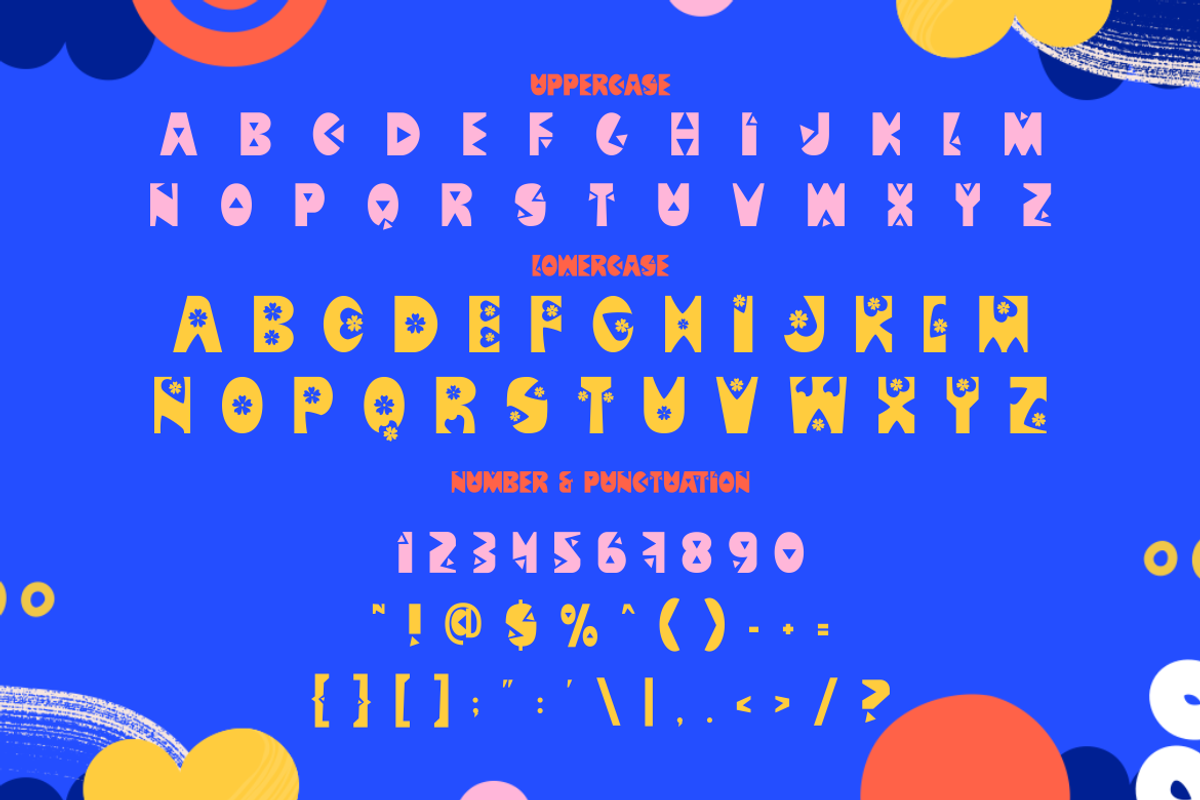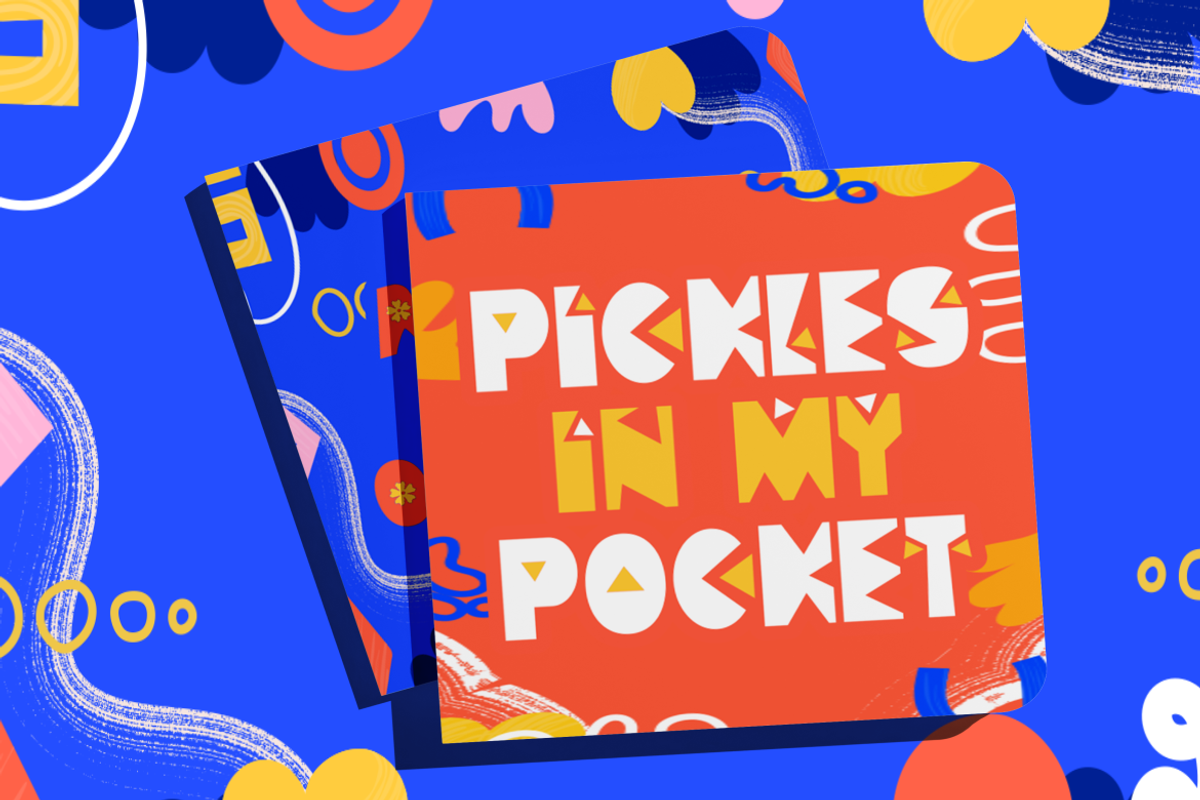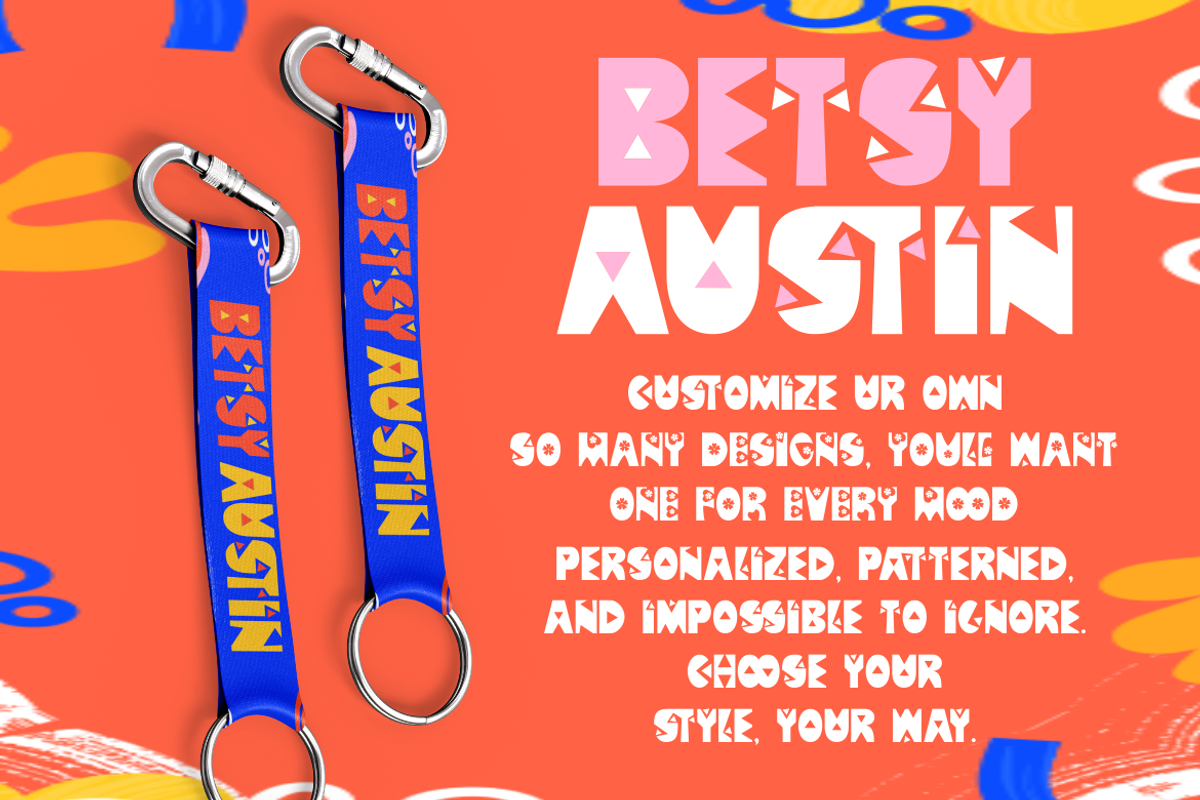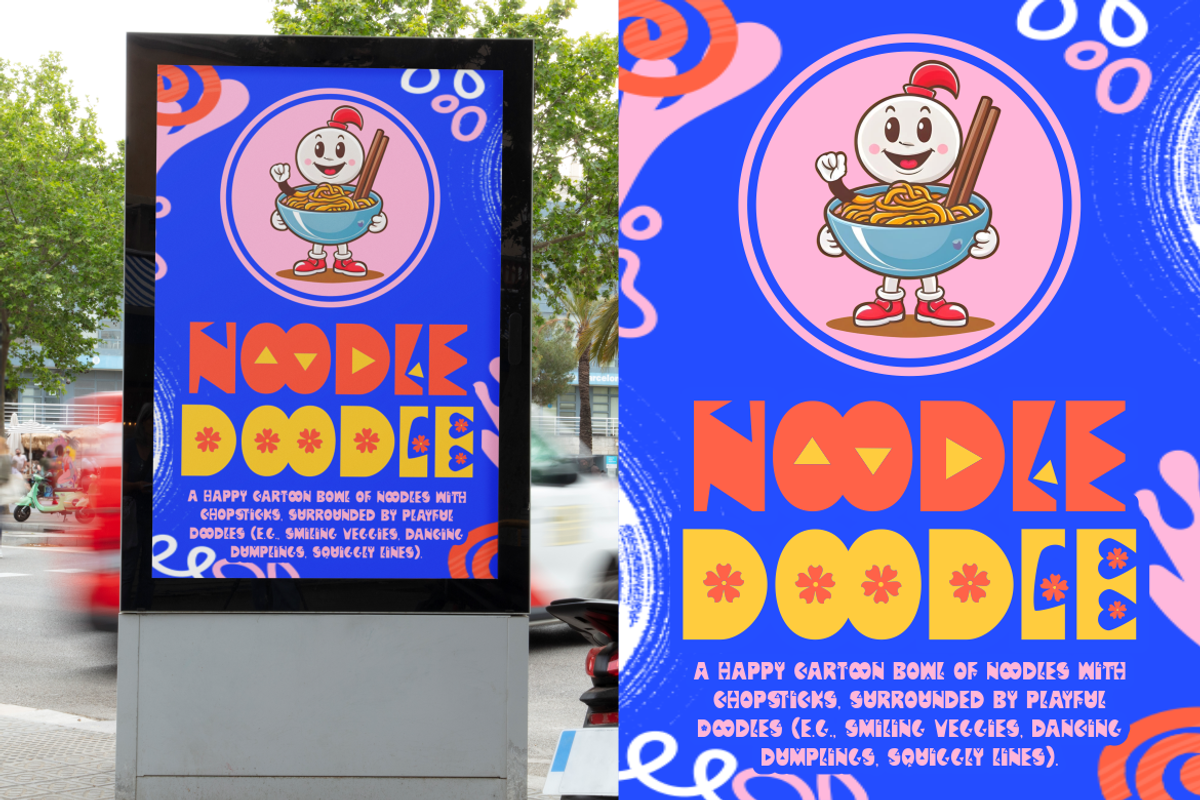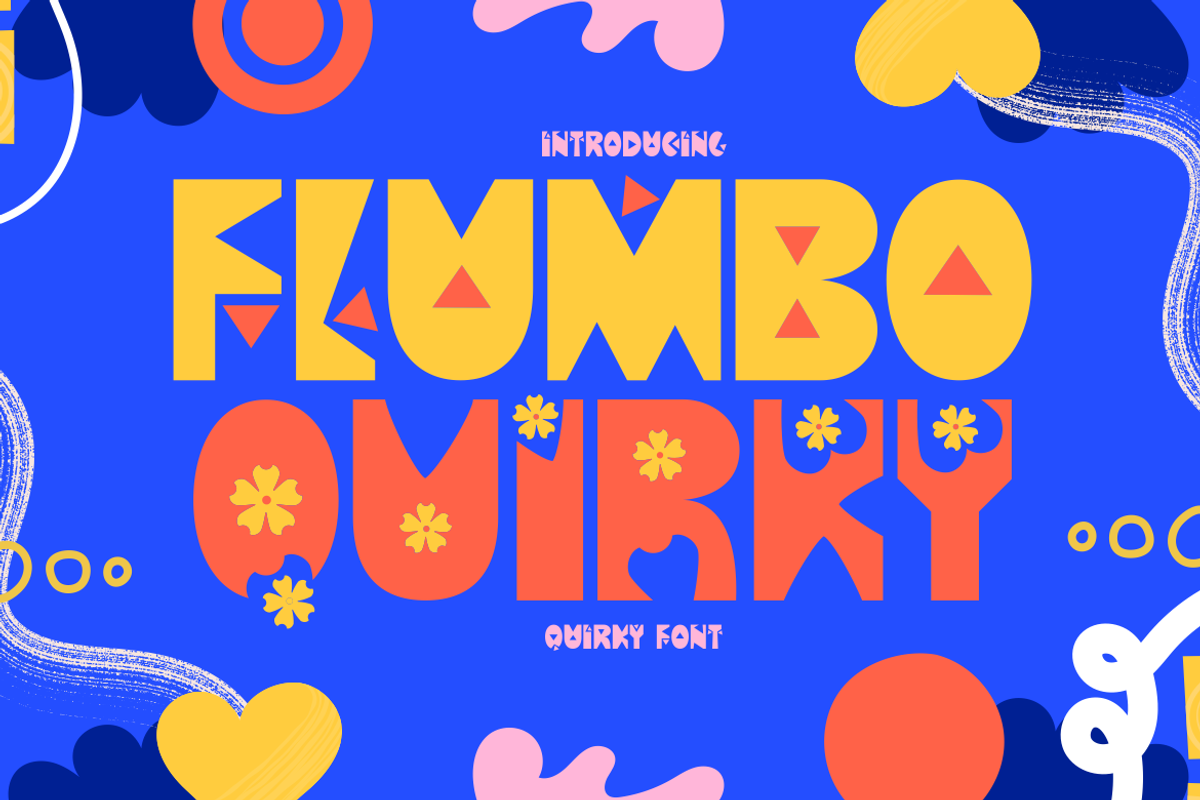
Flumbo Quirky – Playful Quirky Font
Flumbo Quirky is a vibrant, playful font that instantly lifts any design with its bold geometric shapes and fun energy. Each letter is creatively built with quirky triangles, rounded forms, and optional decorative elements like floral icons. This font brings a retro-meets-modern vibe, perfect for projects that need personality, color, and a friendly twist. It features uppercase, lowercase, numbers, and full punctuation—designed with a fun attitude that works well in both digital and print formats. Whether you're crafting an eye-catching title, designing a kids’ book cover, or building a joyful brand identity, Flumbo Quirky makes your message pop.
The font excels in branding, poster work, stickers, merchandise, and packaging for anything fun, funky, or youth-oriented. Its mix of rounded and angular forms keeps layouts dynamic while maintaining legibility. From playful keychains to animated food posters, this font is packed with charm and expression. Use it to create work that’s impossible to ignore, full of color, and brimming with life.